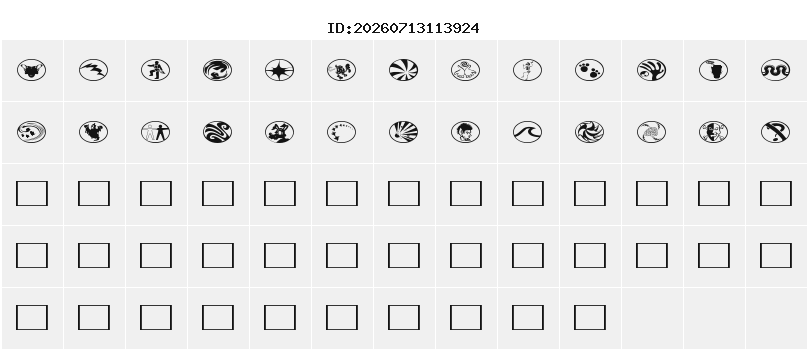
Radbats 2 Preview
• Font Name: Radbats 2
• Designer: Chris Brown
• Description: RADBATS 2 is the second in a collection of fast and funky images that are not quite run of the mill dingbats. They are a modern, unique and useable design picture font that can be used in almost any situation that needs a rare radical touch. (also look for RADBATS)